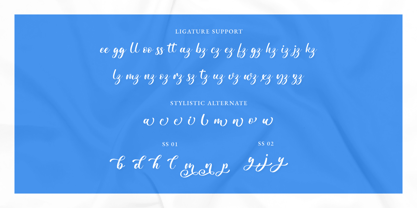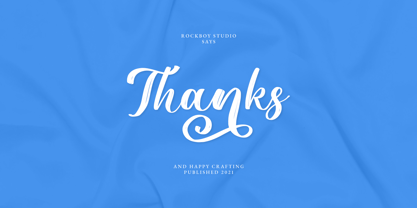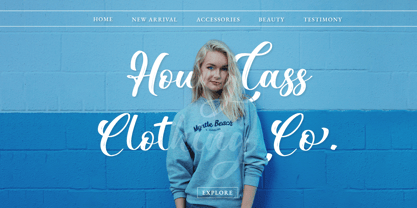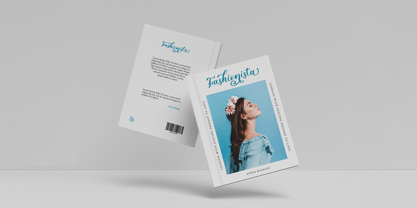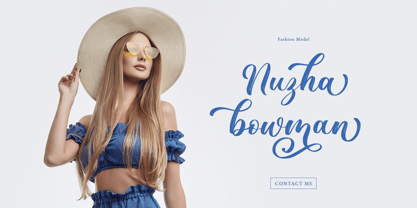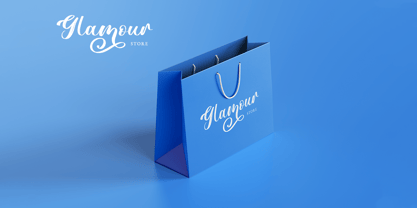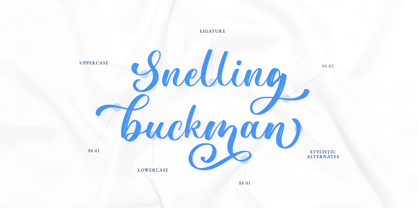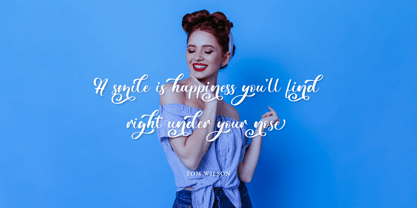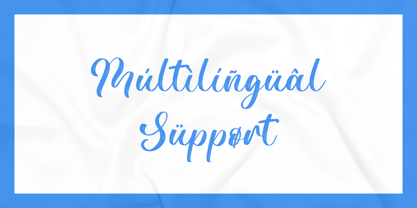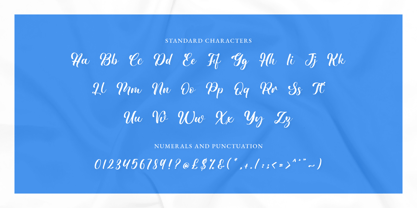
Rougilio
by Rockboys Studio
The Rougilio Font Family was designed by Hayinah and published by Rockboys Studio. Rougilio contains 1 styles.
Rougilio is a magical script font carefully created with a touch of elegance. Whether you’re looking for fonts for Instagram or calligraphy scripts for DIY projects, this font will turn any creative idea into a true piece of art!